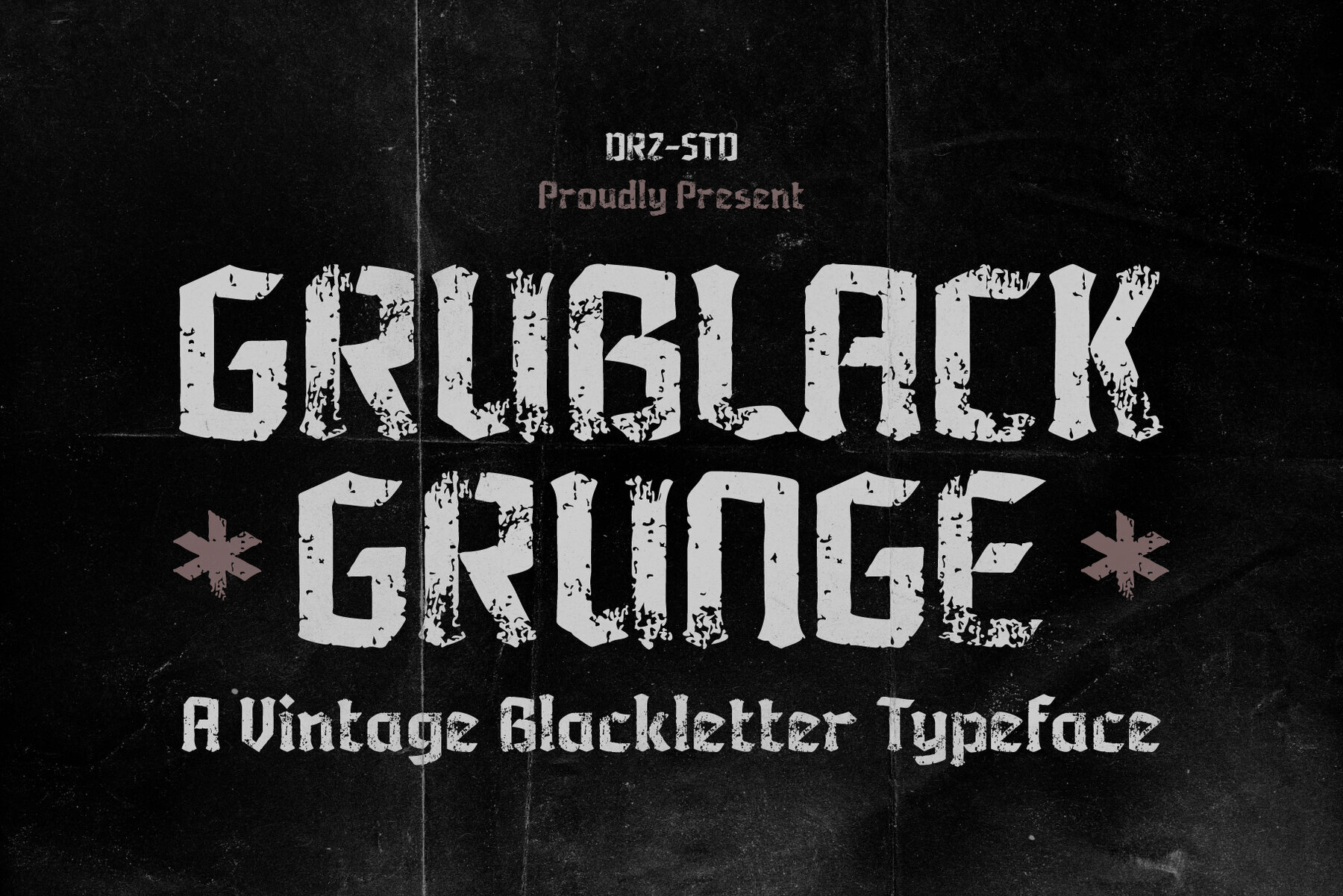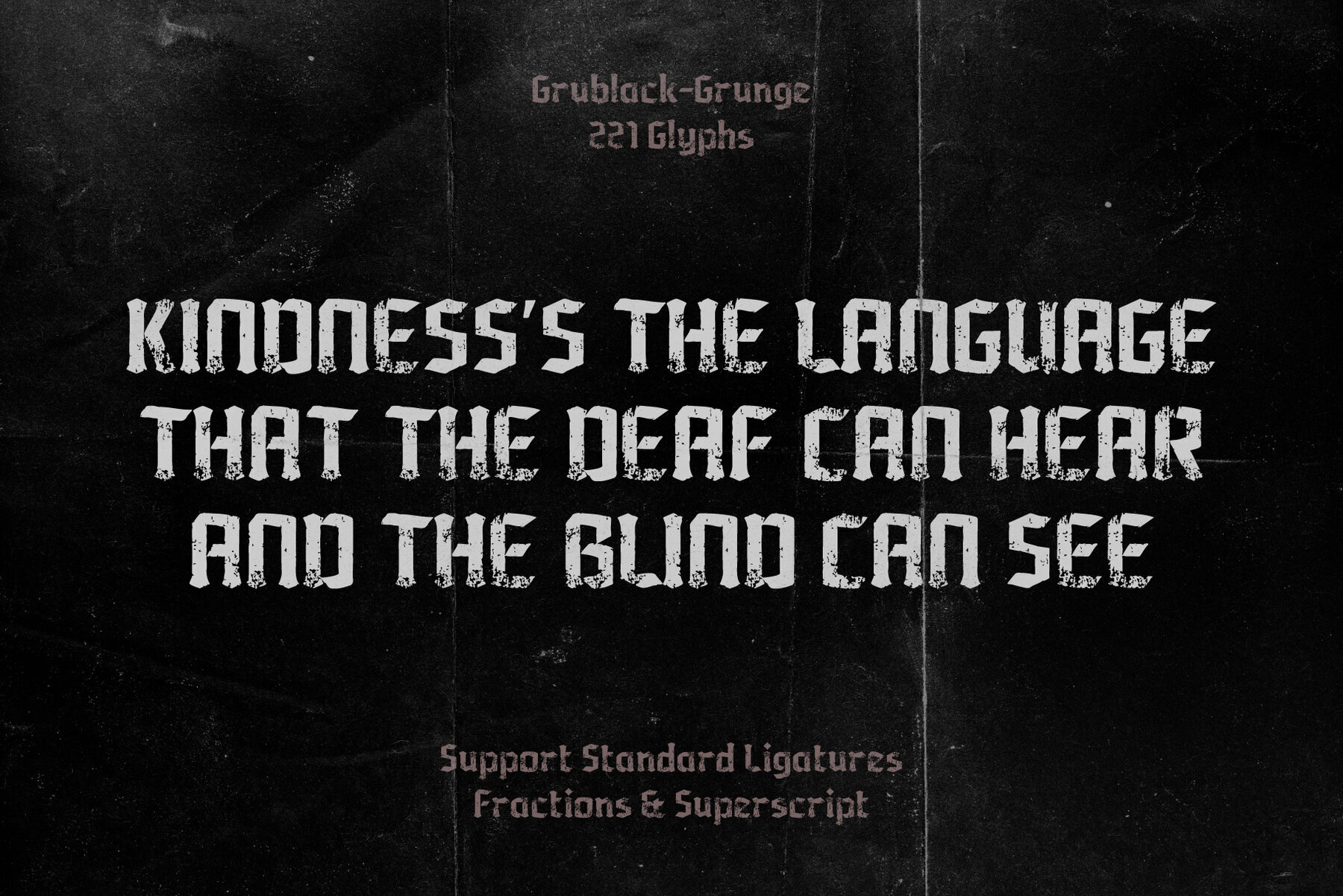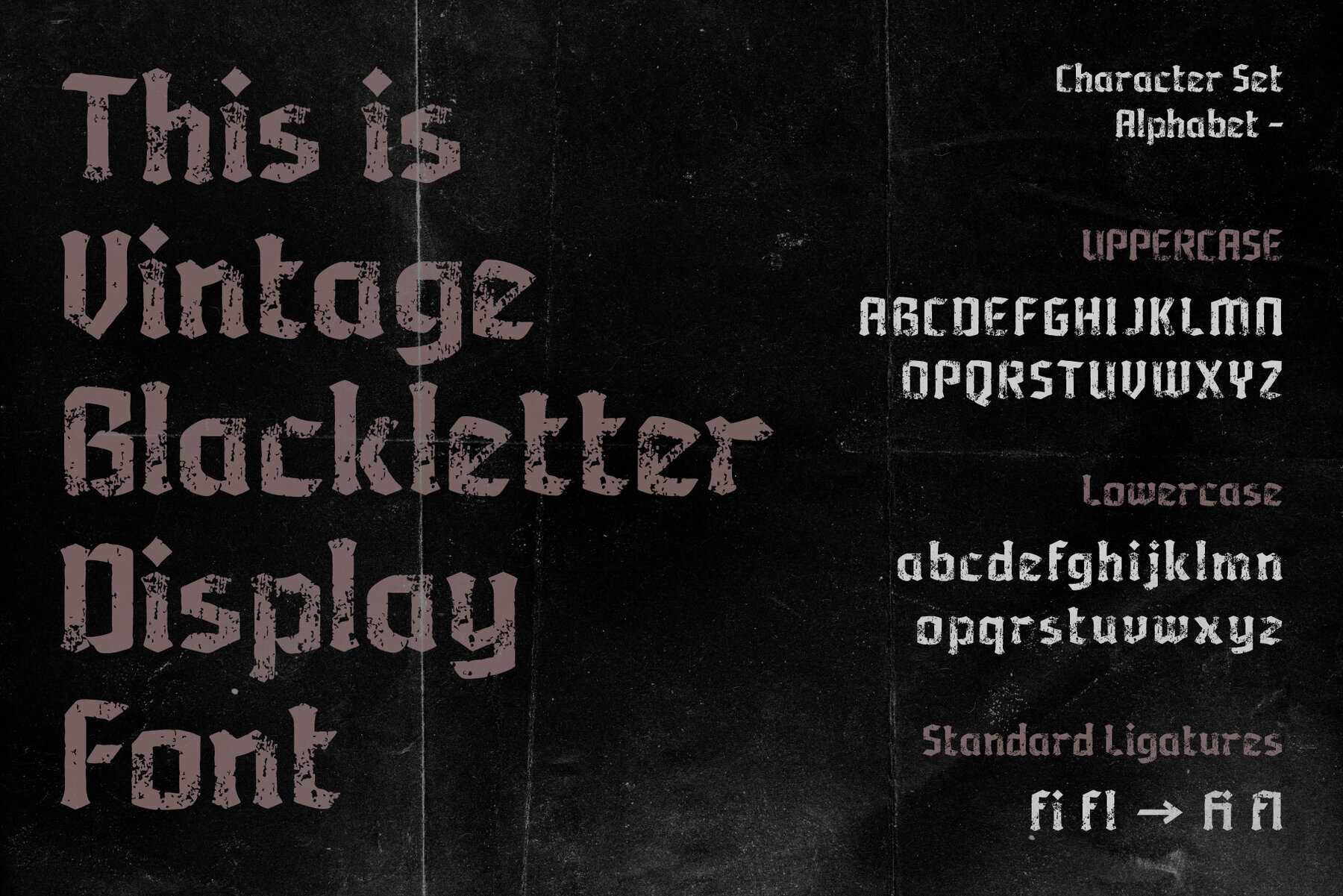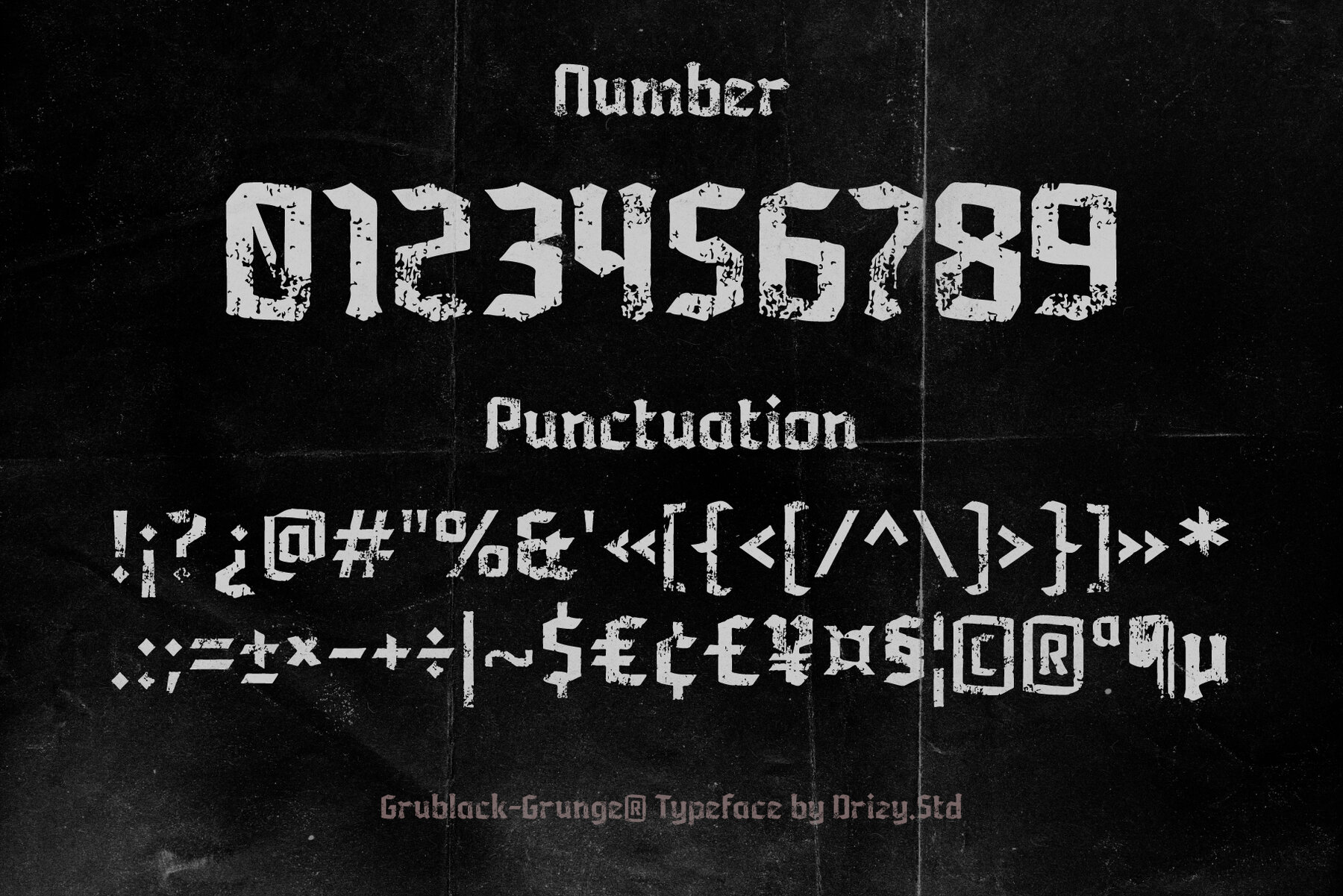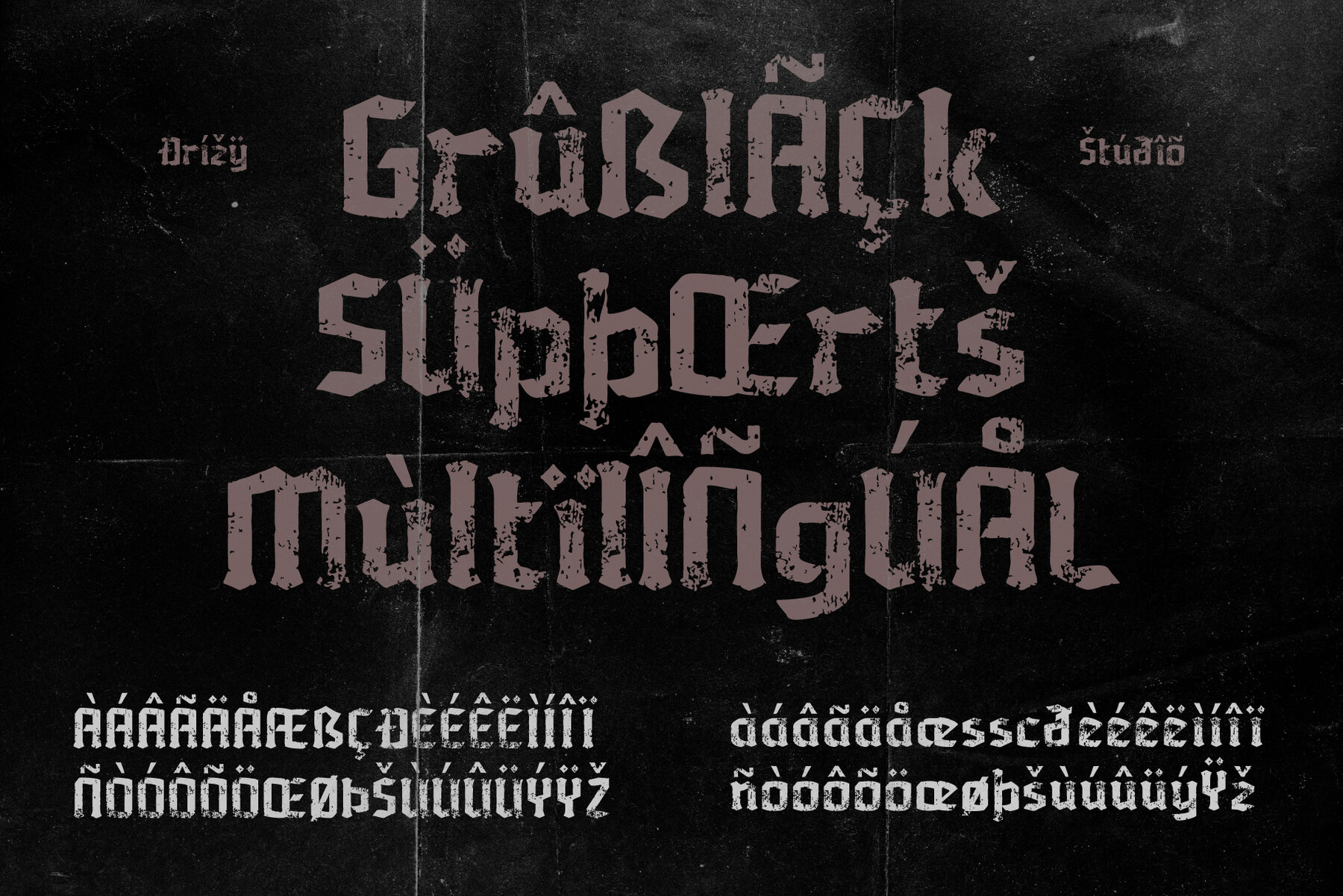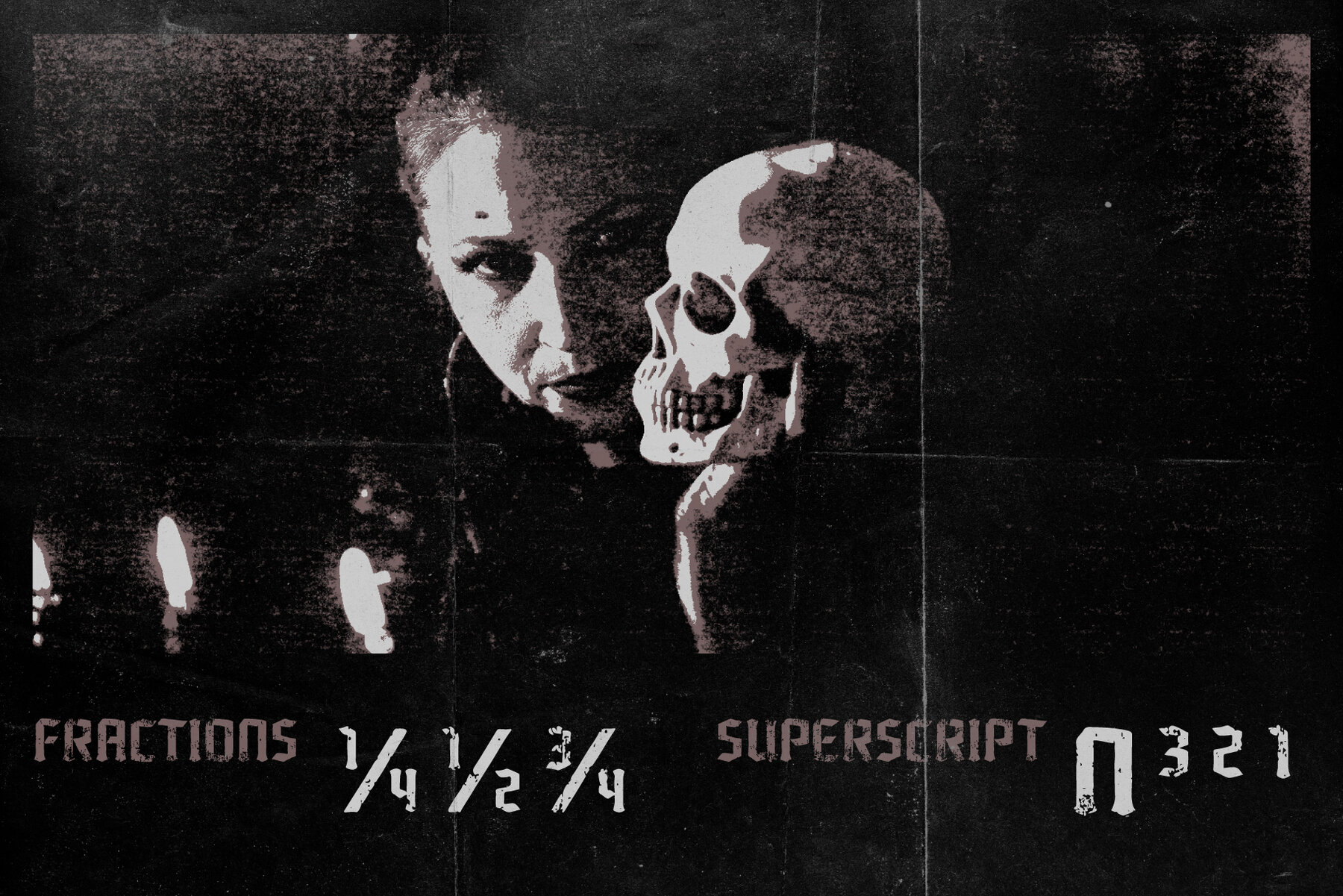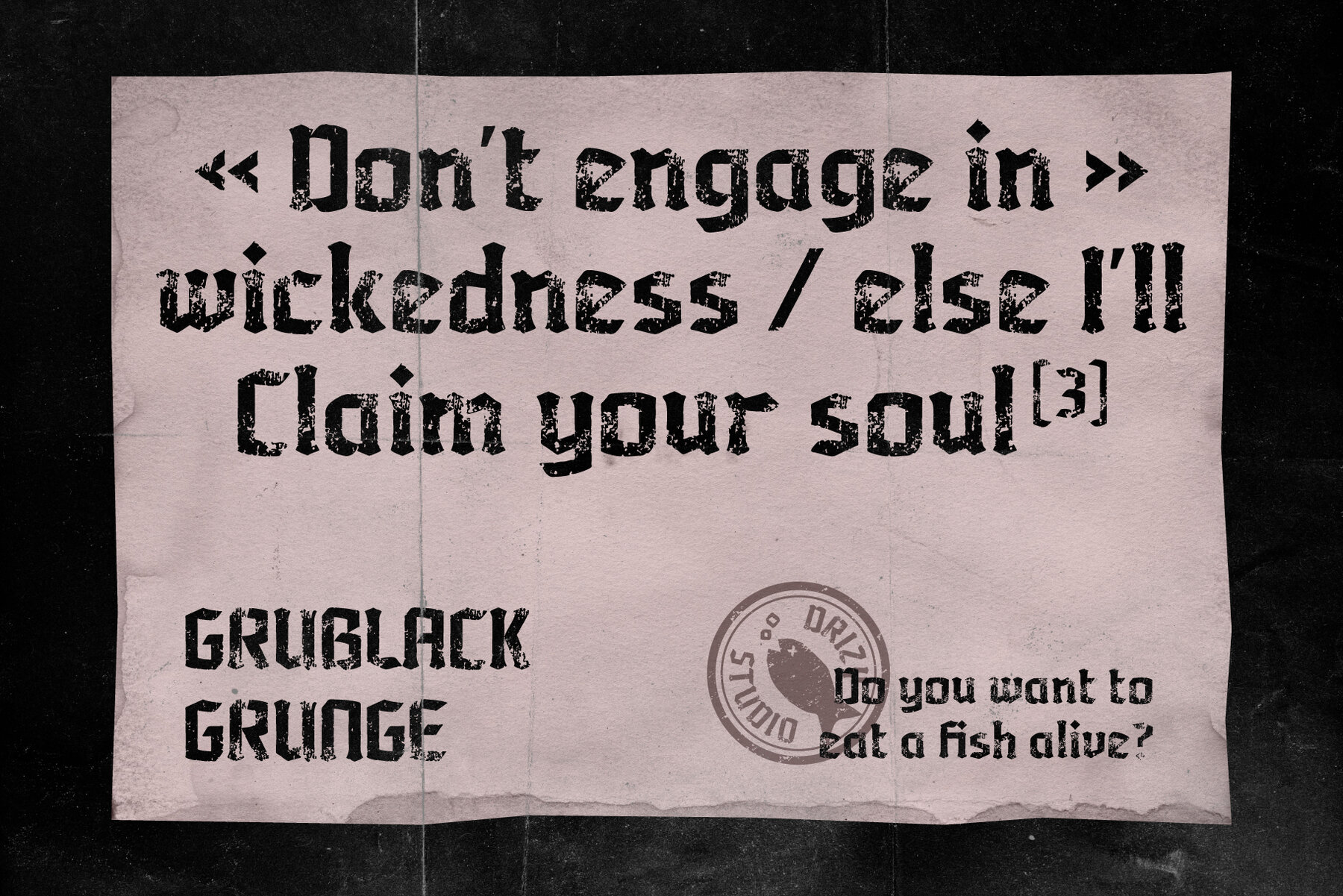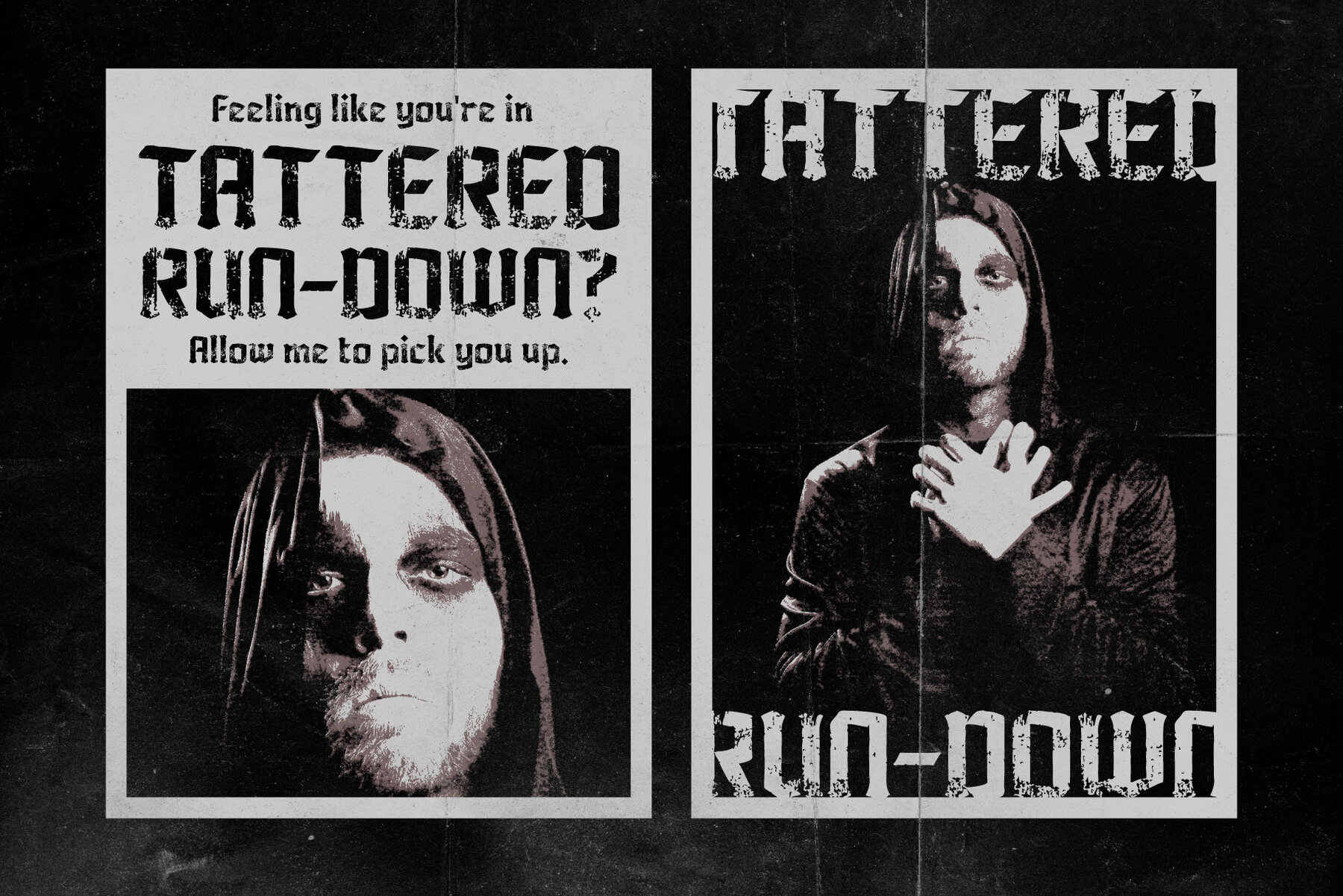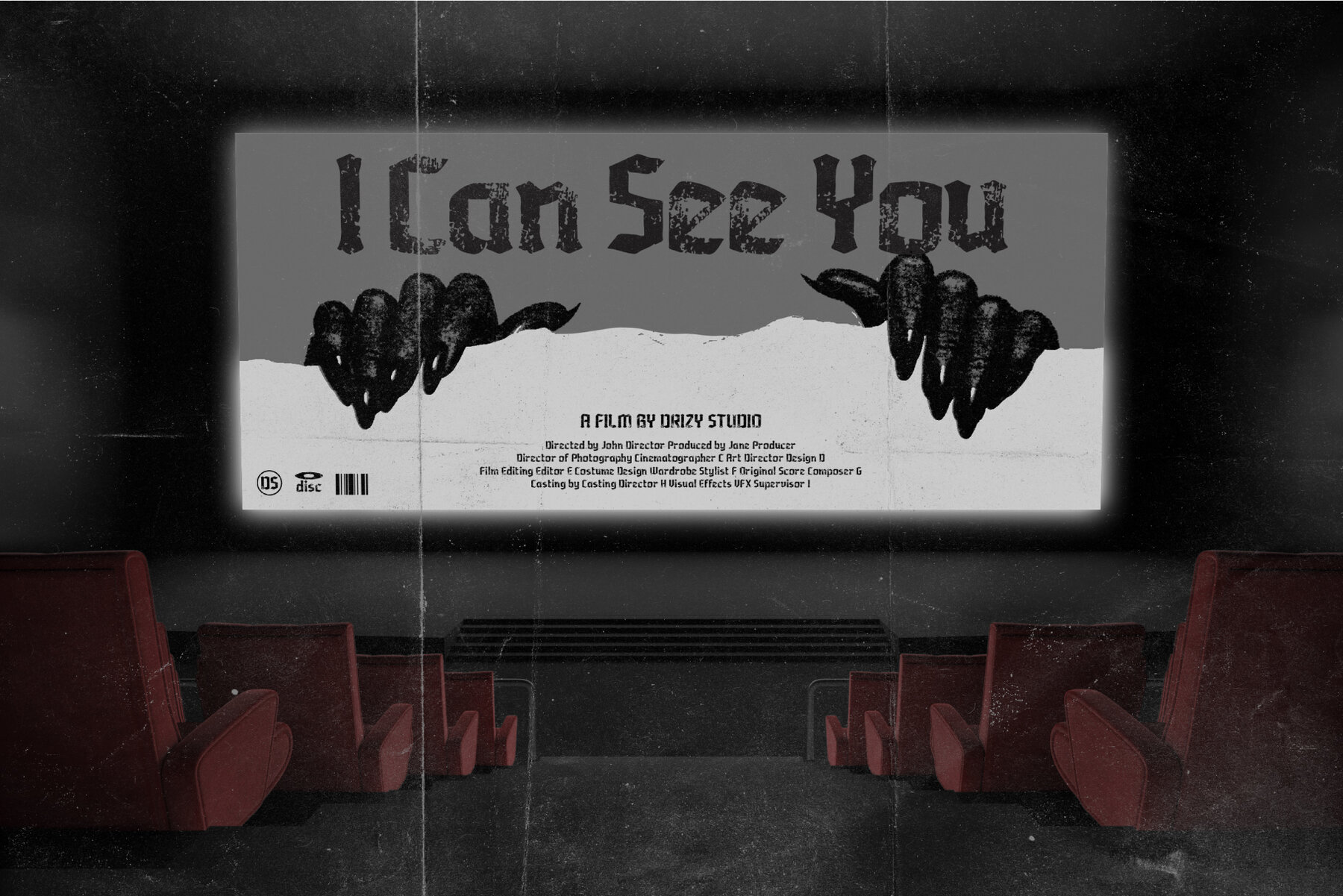
Grublack Font
Grublack Grunge
Grublack Vintage Blackletter Typeface is a stunning font that encapsulates the essence of traditional blackletter typography with a vintage flair. Its intricate design and ornate details evoke a sense of historical significance, making it perfect for projects that require a touch of old-world charm. Whether used for branding, signage, or editorial purposes, soil Font adds a distinctive character and elegance to any design. Grublack features: